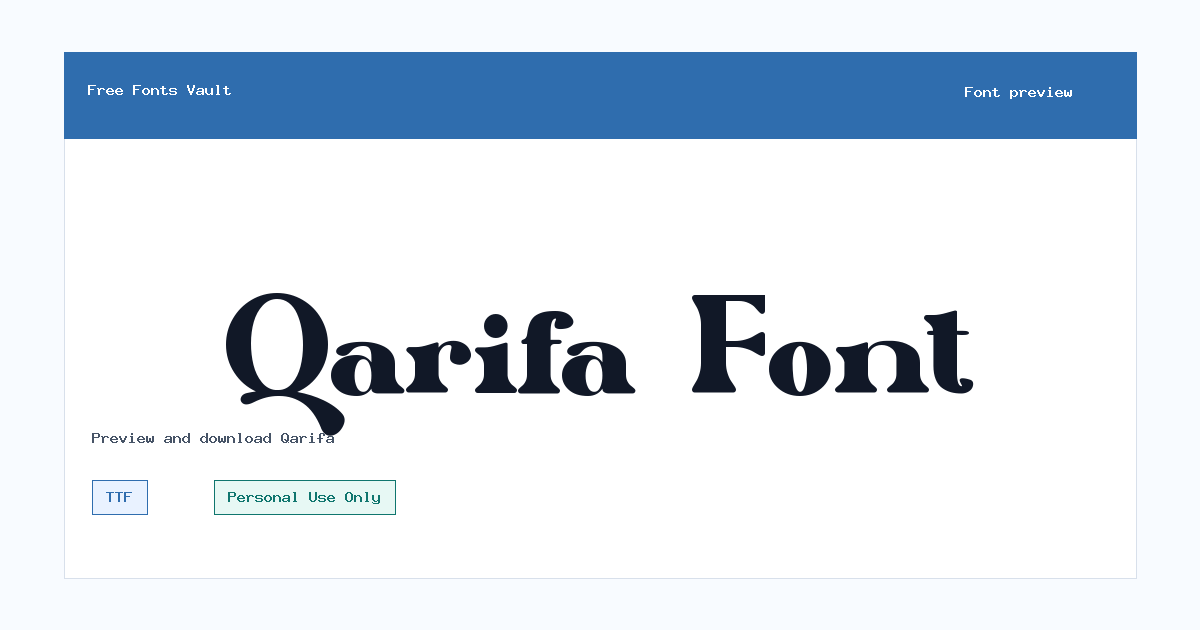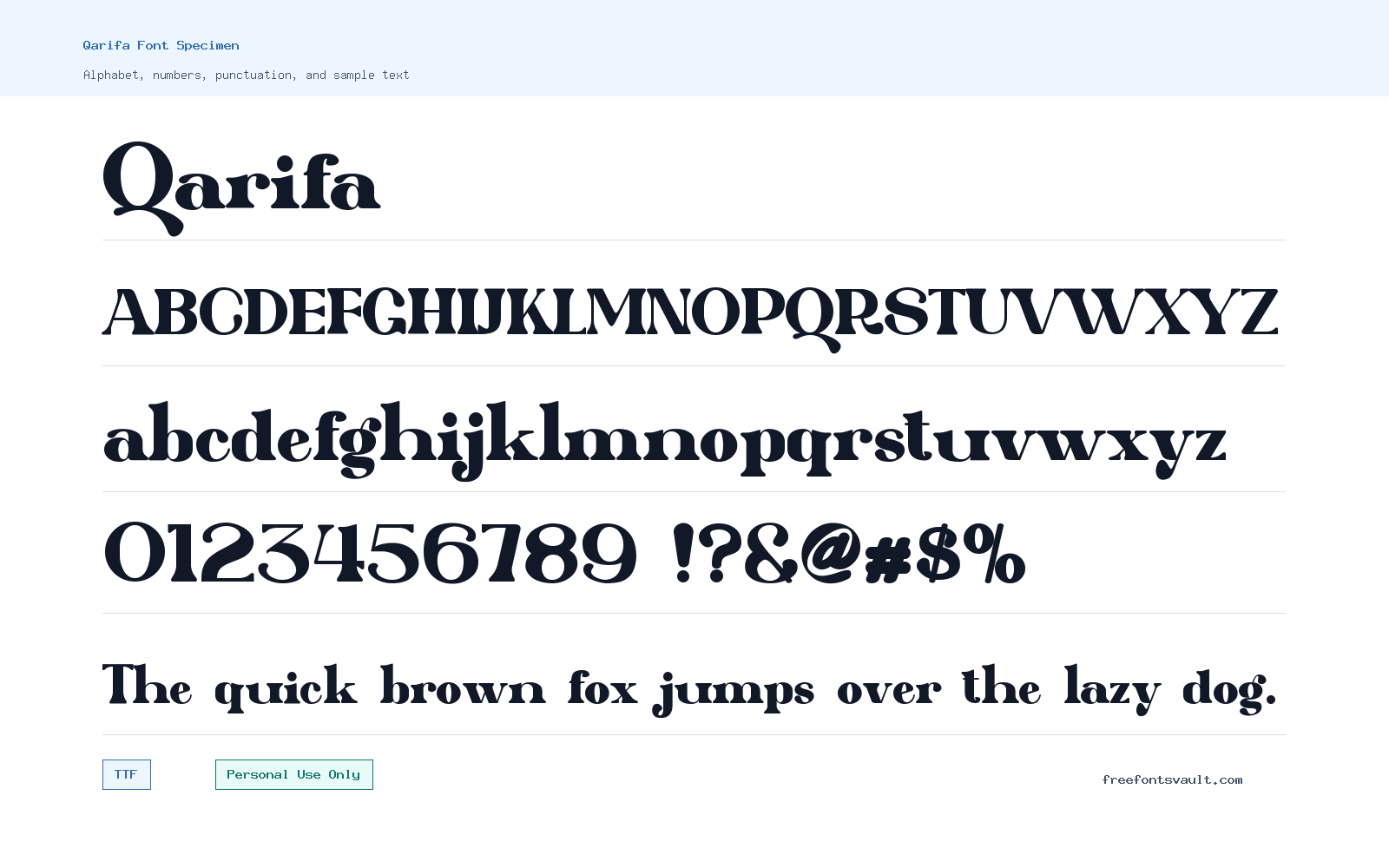
Qarifa
- Designer Usman Albaehaqi
- Foundry Perfectype
Qarifa font.
Qarifa is a personal-use serif font by Usman Albaehaqi of Perfectype. It is a good choice to test when you want a refined title style for logos, posters, invitations, branding drafts, or web design mockups.
About Qarifa Font
Qarifa is presented as a serif font, which means it is best approached as a display or text-style typeface with more character than a plain sans serif. Because the downloadable file is a regular TTF font, it should work in common design tools that support TrueType fonts, including desktop layout apps, image editors, and many font preview tools. Try it first in the live preview with the exact wording you plan to use, especially if your design depends on names, short headings, or logo-style lettering.
For designers, Qarifa is most useful in places where the type needs to feel composed and intentional without relying on heavy decoration. It can be tested for boutique logo concepts, poster titles, quote graphics, editorial-style headers, packaging mockups, social media artwork, and website hero sections. Keep the layout simple around it: give the letters enough spacing, avoid crowding it with too many competing fonts, and check how it looks at both large and small sizes. If you are using it for a logo draft, preview uppercase, lowercase, and mixed-case versions before choosing the final direction, because serif fonts can change mood quickly depending on capitalization.
Qarifa is also worth testing in web mockups, but use it carefully. A distinctive serif can make a homepage heading or brand mark feel more memorable, while long paragraphs may need a more neutral companion font for comfort. Pair it with a clean sans serif for menus, buttons, captions, and body copy. If you want a more traditional layout, pair it with a quiet serif that does not compete with the title style. In either case, the safest approach is contrast: let Qarifa handle the main visual moment, then use a simpler font for supporting information.
- Serif design suited to display typography, headings, branding drafts, posters, and elegant short text
- Useful for testing logo concepts, web hero text, editorial titles, invitations, and social graphics
- Logo concepts and personal branding drafts
- Poster titles and quote graphics
- Invitation headings and elegant event layouts
- Website hero sections and landing page mockups
- Editorial-style headers for personal design projects
- Packaging or label concepts for non-commercial presentation work
Qarifa is credited to designer Usman Albaehaqi and foundry Perfectype.
What kind of font is Qarifa?
Qarifa is identified as a serif font. It is best tested for display uses such as logos, titles, posters, invitations, and web hero text.
Is Qarifa good for website design?
Qarifa can be tested in website mockups for headings, hero sections, and brand-style text. For longer body text, pair it with a simpler font that stays easy to read.
What fonts pair well with Qarifa?
A clean sans serif is usually the safest pairing. Use Qarifa for the main title or logo-style text, then use the simpler font for paragraphs, menus, buttons, and captions.